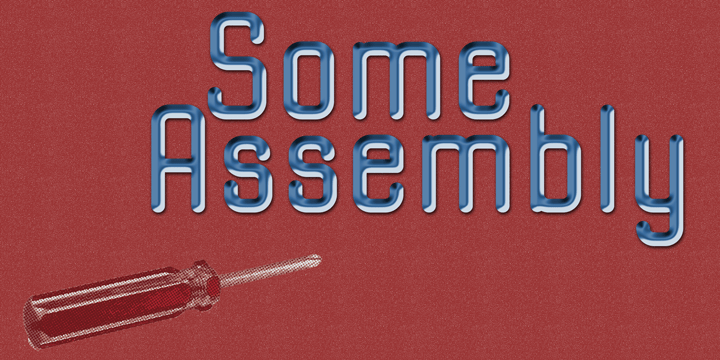
Rifleman
Font Family by Open Window
What a nice tranquil feeling you get from the wide forms of this font. The air of spontaneity was the most important thing about developing Rifleman. The forms were carefully and slowly constructed and then loosely traced with a paintbrush. Maybe the original drawings will become a font someday but i like to think that they won't for some reason. Surprisingly Rifleman is left to only the bare essential elements, anything that wasn't necessary was left out or removed.
The goal was to make it as lightweight as possible to make up for the intricate detail.
Rifleman is a surprisingly lightweight font offering lends itself to speedy typesetting!